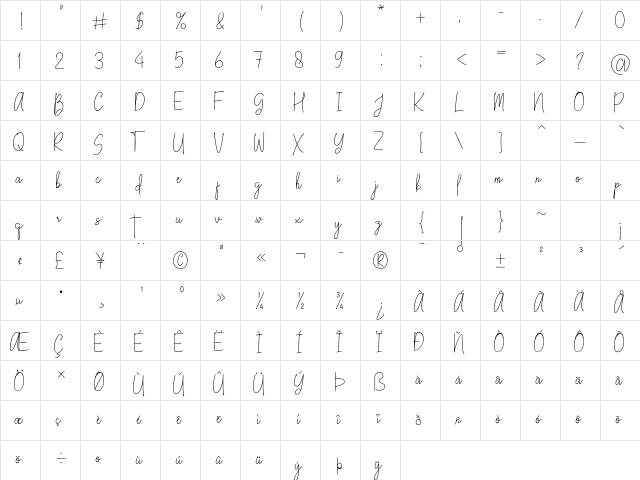
Kallyta Regular
| Designer | Sungi Creative |
Design Context for Kallyta Typeface
Kallyta is a composed and adaptable typeface that performs quietly and consistently across a wide range of design contexts.